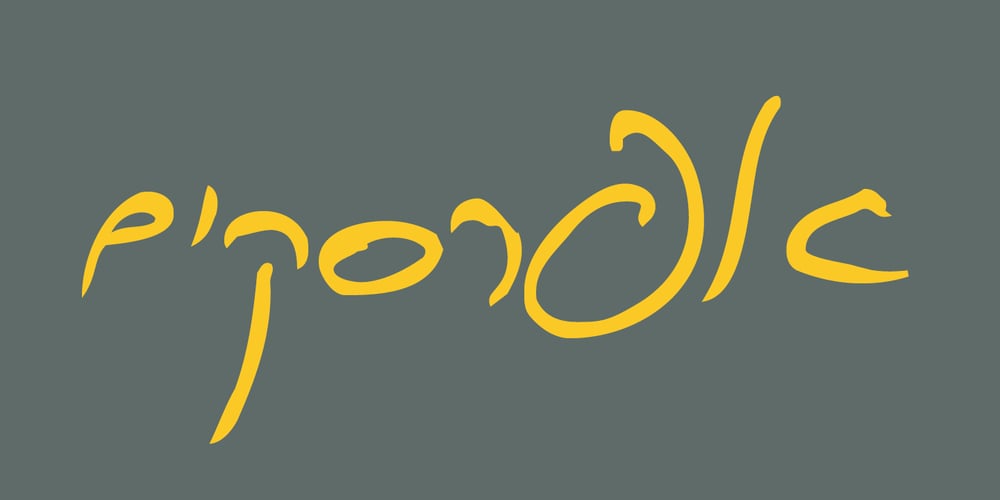
Piki MF
Piki MF font
Piki MF Font Family was designed by Piki Rosenberg and published by Masterfont. Piki MF contains 1 styles and family package options. This font is a vivid choice when you want to effortlessly make your designs stand out with a remarkable clearly crafted handwriting.